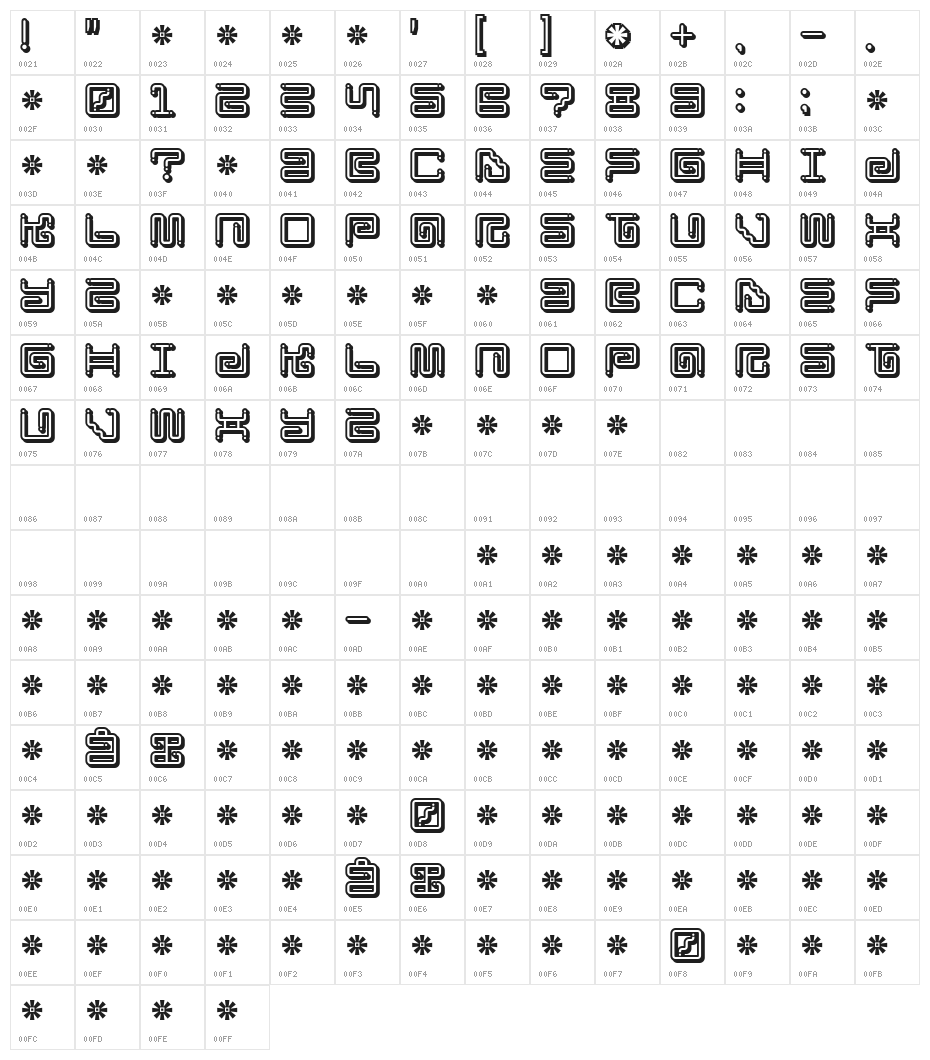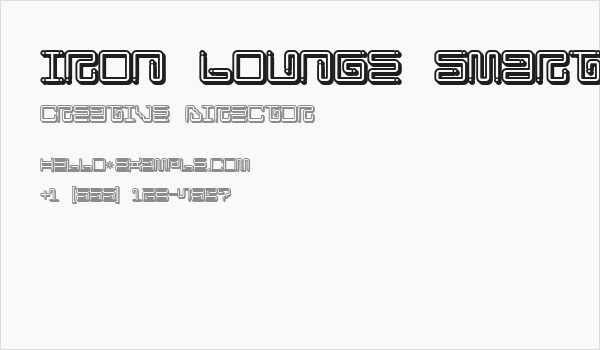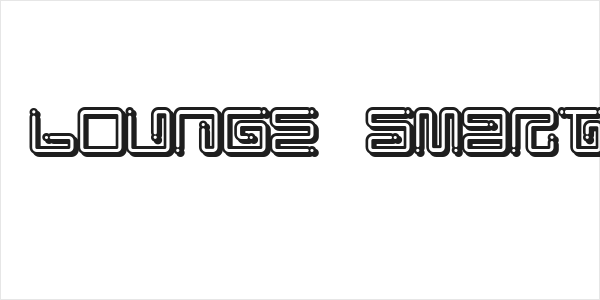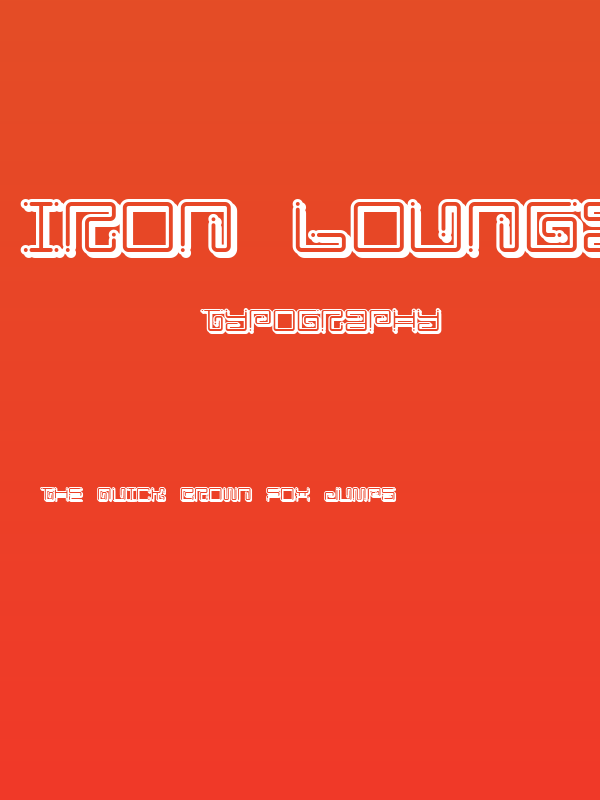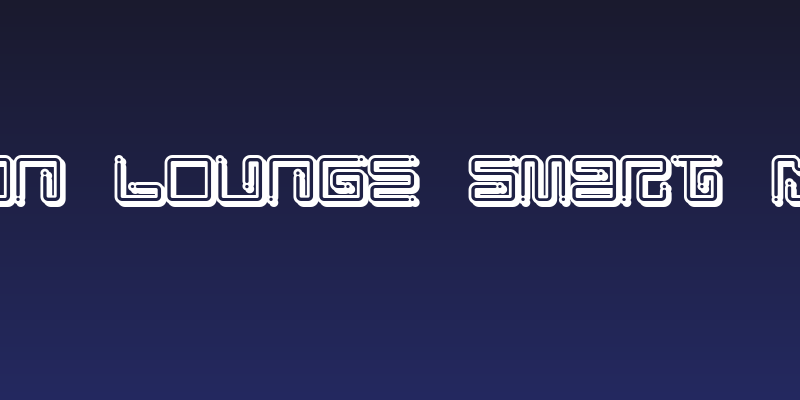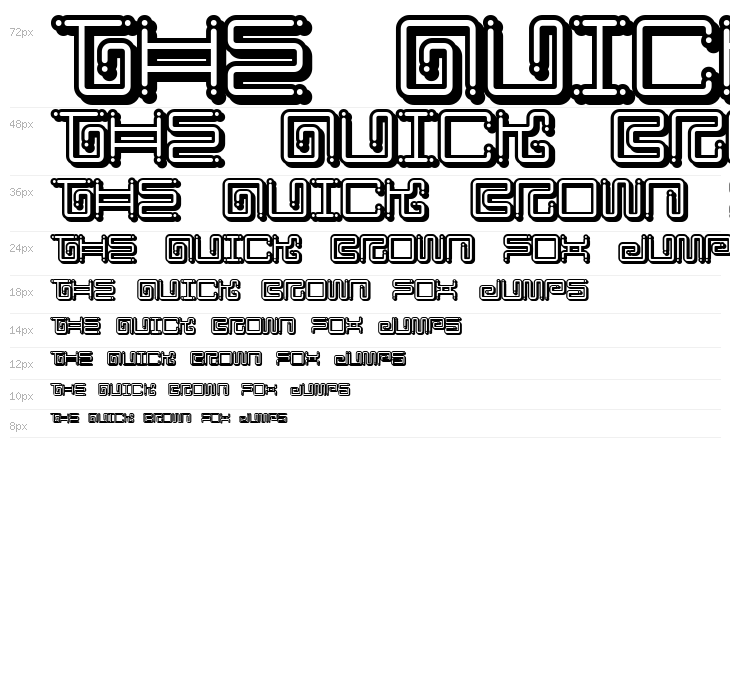
Iron Lounge Smart Dot Font
Iron Lounge Smart Dot Description
This font features a futuristic and digital aesthetic, characterized by its bold, geometric shapes and intricate line work. Each character is composed of a series of connected lines and dots, creating a circuit-like appearance. The letters and numbers are uniformly structured, providing a cohesive and modern look. The font's unique style makes it stand out, with a strong emphasis on symmetry and precision. Its decorative elements are balanced by a clear readability, making it suitable for various creative applications.
| Proposed Projects | Ideal for technology-themed designs, digital art projects, sci-fi movie titles, and modern branding. |